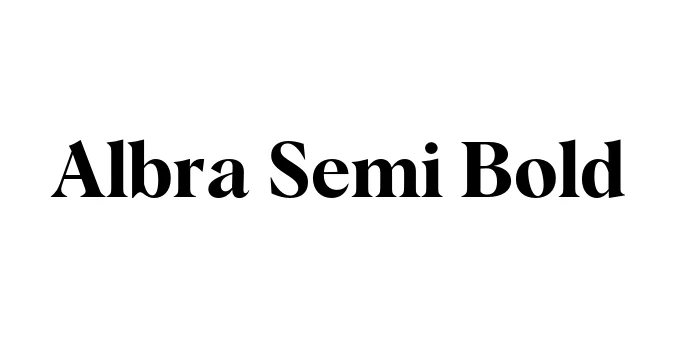
Albra Semi Bold
Designed by BumBumType
| Similar Fonts | ITC Clearface, Souvenir, Benguiat, Recoleta |
Albra Semi Bold is a core weight of the sophisticated Albra family designed by BumBumType. It represents a masterful blend of 1970s nostalgia and contemporary high-fashion aesthetics. The typeface is characterized by its high-contrast strokes and sharp, elegant serifs that command attention while maintaining a high level of legibility and grace across various mediums.
The design features soft, organic terminals and rhythmic curves that evoke a sense of warmth and luxury. This Semi Bold iteration provides enough visual weight to function as a powerful headline face, yet it retains the delicate nuances required for shorter blocks of text. It has become a favorite among designers for projects that require a timeless, editorial feel with a modern edge.
Albra Semi Bold Best Uses
Perfect for magazine mastheads, body pull-quotes, and high-end book covers.
Ideal for luxury fashion labels, perfume packaging, and premium lifestyle brands.
Excellent for landing page hero sections and bold digital storytelling.
Effective for high-impact social media graphics and promotional print materials.